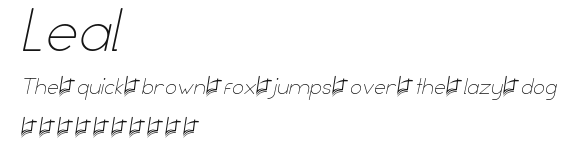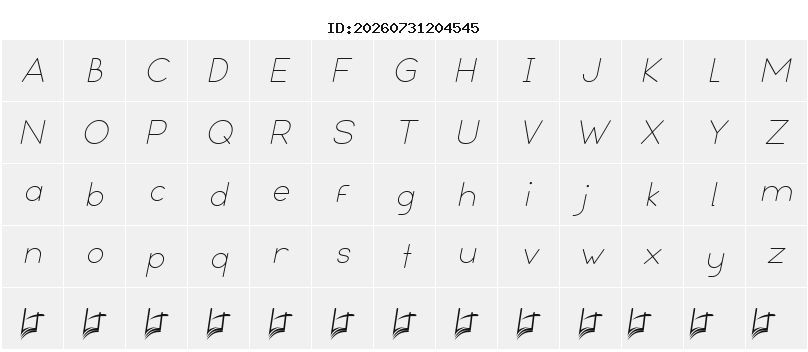
• Font Name: Leal
• Designer: Luis Jaramillo
• Manufacturer: LJ Design Studios
About Leal.ttf
Leal.ttf is a modern, elegant sans-serif font designed for ultimate readability and visual harmony. Perfect for branding, headlines, web design, and print materials.